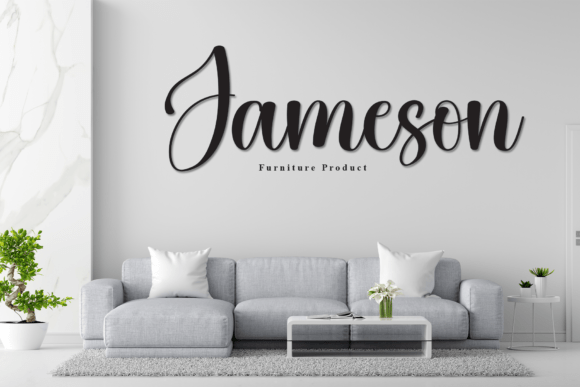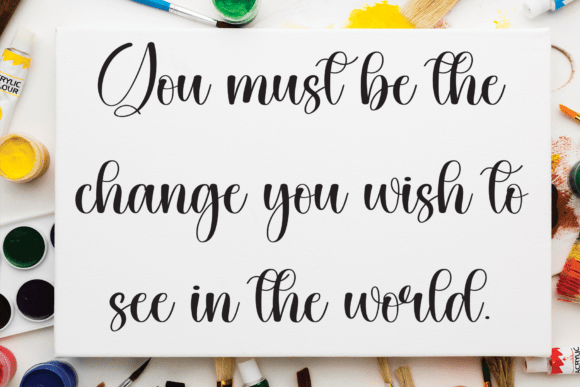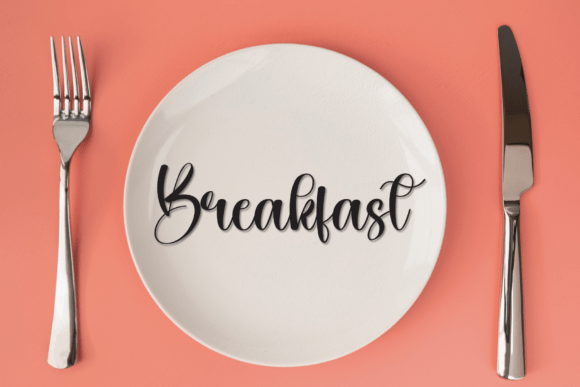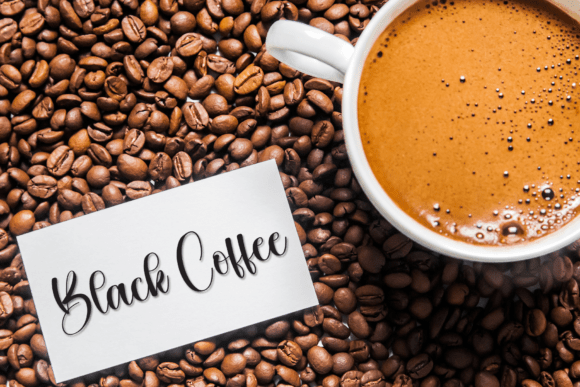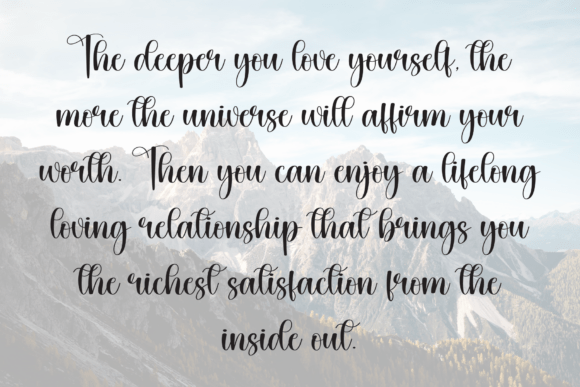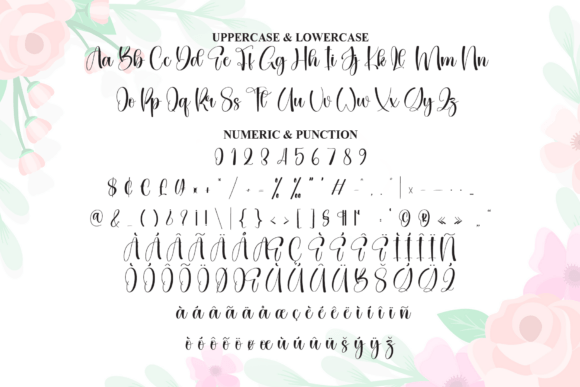
Unleashing Creativity: The Astonished Font
Have you ever stared at a blank canvas, waiting for inspiration to strike? The blank page can be intimidating, but sometimes all it takes is the right tool to spark your imagination. For designers, a beautiful font can be that catalyst. Enter the Astonished Font, a stylish script font that embodies the essence of creativity and modern elegance.
With its flowing strokes, graceful curves, and expressive letterforms, the Astonished Font captures the beauty of hand-drawn calligraphy with a contemporary flair. Ideal for logos, invitations, packaging, and social media graphics, it adds an artistic and sophisticated touch to any design. Whether you’re a seasoned designer or just starting out, this versatile font is a valuable addition to your toolkit.
Astonished Font Key Features
- Unique Characteristics: Unique, hand-drawn style with intricate details and ornaments, ideal for creative and artistic projects
Astonished Font Review
As a designer, I was excited to try out the Astonished Font, and I must say it’s a mixed bag. Here’s my honest review.
- The font’s unique, hand-drawn feel adds a touch of personality to any design project.
- The font is highly customizable, with a wide range of weights, styles, and formatting options available.
- The font is highly legible, even at small font sizes, making it perfect for body text and other long-form content.
- The font may not be suitable for formal or professional designs, as its hand-drawn feel can come across as amateurish.
- The font’s complexity can make it difficult to use in certain design applications or software.
- The font’s unique feel can be overwhelming or distracting in certain contexts, so it’s essential to use it judiciously.
Overall, I’d say the Astonished Font is a solid choice for designers looking for a unique, hand-drawn feel in their designs. However, it’s essential to use it thoughtfully and in the right context to avoid any potential pitfalls. With some careful consideration and planning, the Astonished Font can be a valuable addition to your design toolkit.
Tips for Getting the Most Out of Astonished Font
Use Astonished Font to add a touch of elegance and sophistication to your designs.
Pair it with bold colors and contrasting backgrounds to create a striking visual effect.
Experiment with different font sizes and styles to create a unique and eye-catching look.
Astonished Font is perfect for:
Business cards and marketing materials.
Magazine and newspaper headlines.
Any design where you want to add a touch of sophistication and elegance.
Alternatives to Astonished Font for Designers
Great Vibes Font is a playful and elegant script font that’s perfect for creating a warm and inviting atmosphere. It’s ideal for use in branding, advertising, and packaging designs where a sense of excitement and energy is required.
Compared to Astonished Font, Great Vibes Font has a more refined and sophisticated feel, making it suitable for a wider range of design applications.
Dancing Script Font is a lively and dynamic script font that’s perfect for adding a touch of whimsy and personality to designs. It’s ideal for use in social media graphics, posters, and flyers where a sense of fun and playfulness is required.
Compared to Astonished Font, Dancing Script Font has a more fluid and expressive feel, making it suitable for designs that require a sense of movement and energy.
Carolyna Pro Font is a modern and elegant script font that’s perfect for creating a sense of sophistication and refinement. It’s ideal for use in luxury branding, high-end advertising, and premium packaging designs where a sense of exclusivity and prestige is required.
Compared to Astonished Font, Carolyna Pro Font has a more polished and refined feel, making it suitable for high-end design applications where a sense of luxury and sophistication is required.
Is the Astonished Font compatible with accessibility standards?
Yes, the Astonished Font is designed with accessibility in mind. It meets or exceeds the requirements of the Web Content Accessibility Guidelines (WCAG 2.1) and the Section 508 guidelines for the United States. The font also supports a wide range of Unicode characters, ensuring that it can be used to display text in multiple languages.